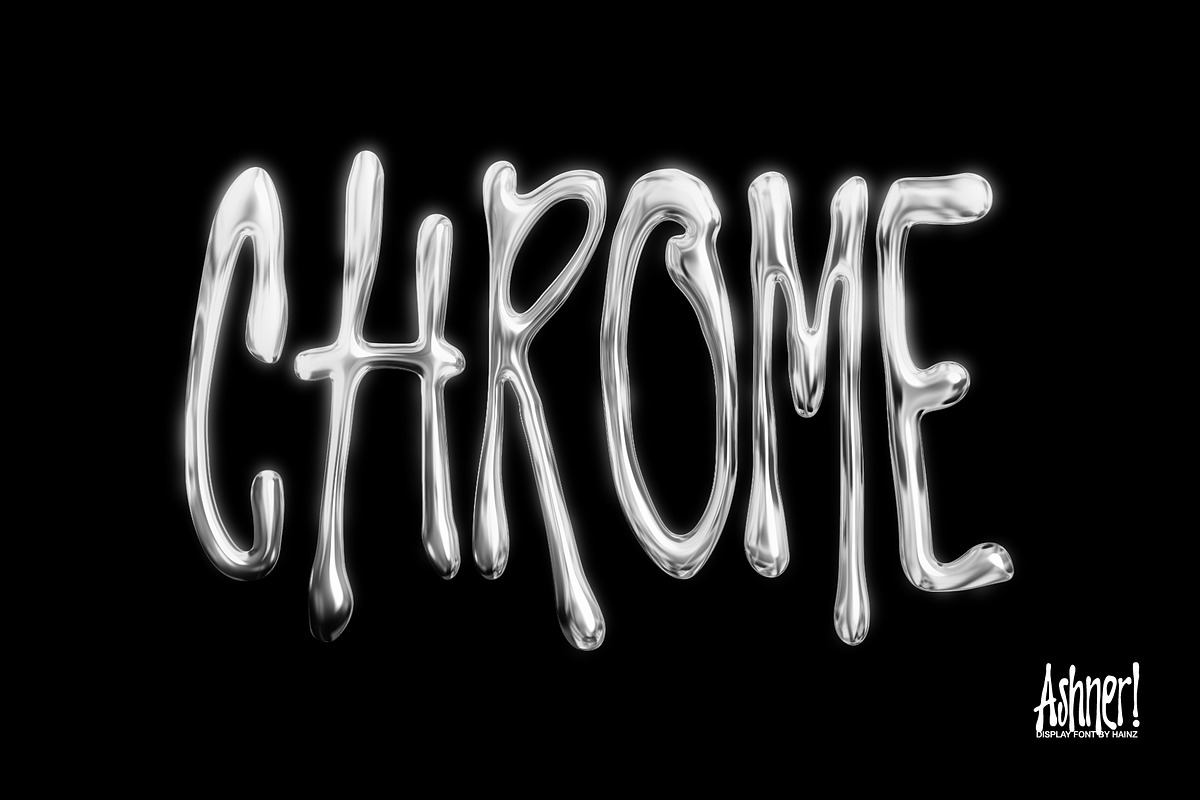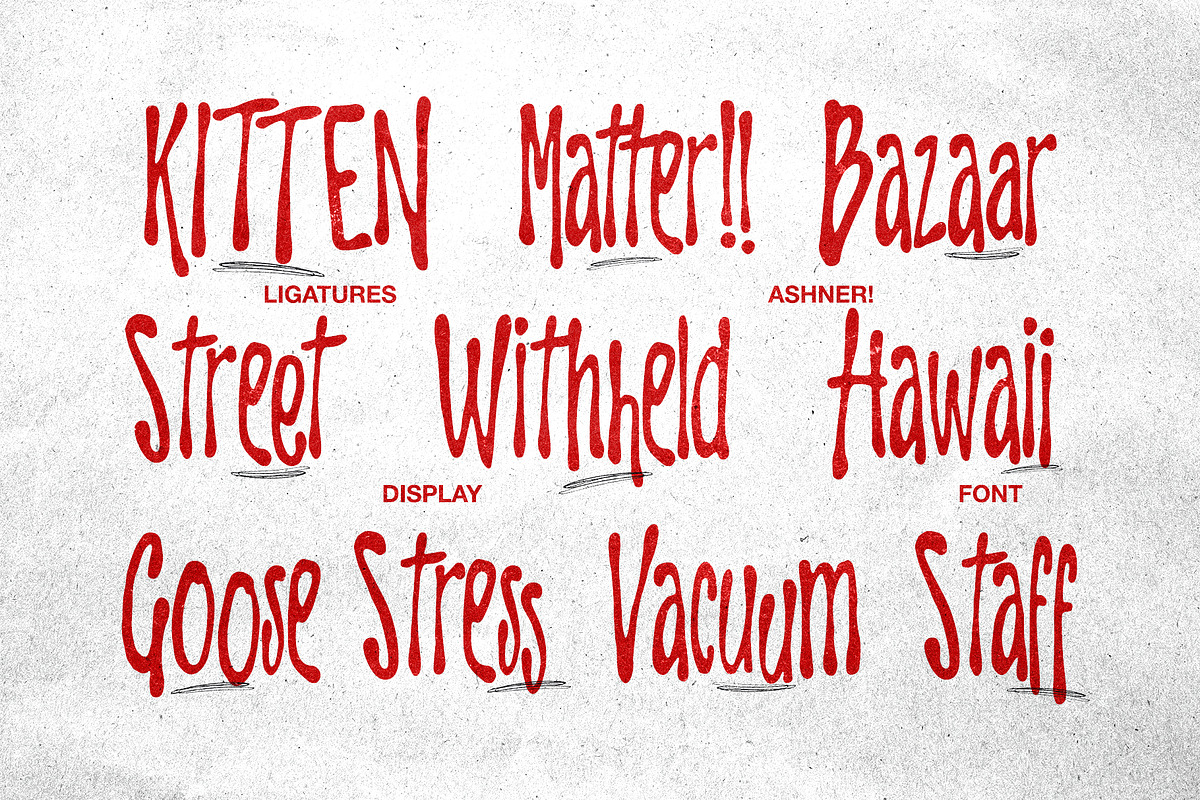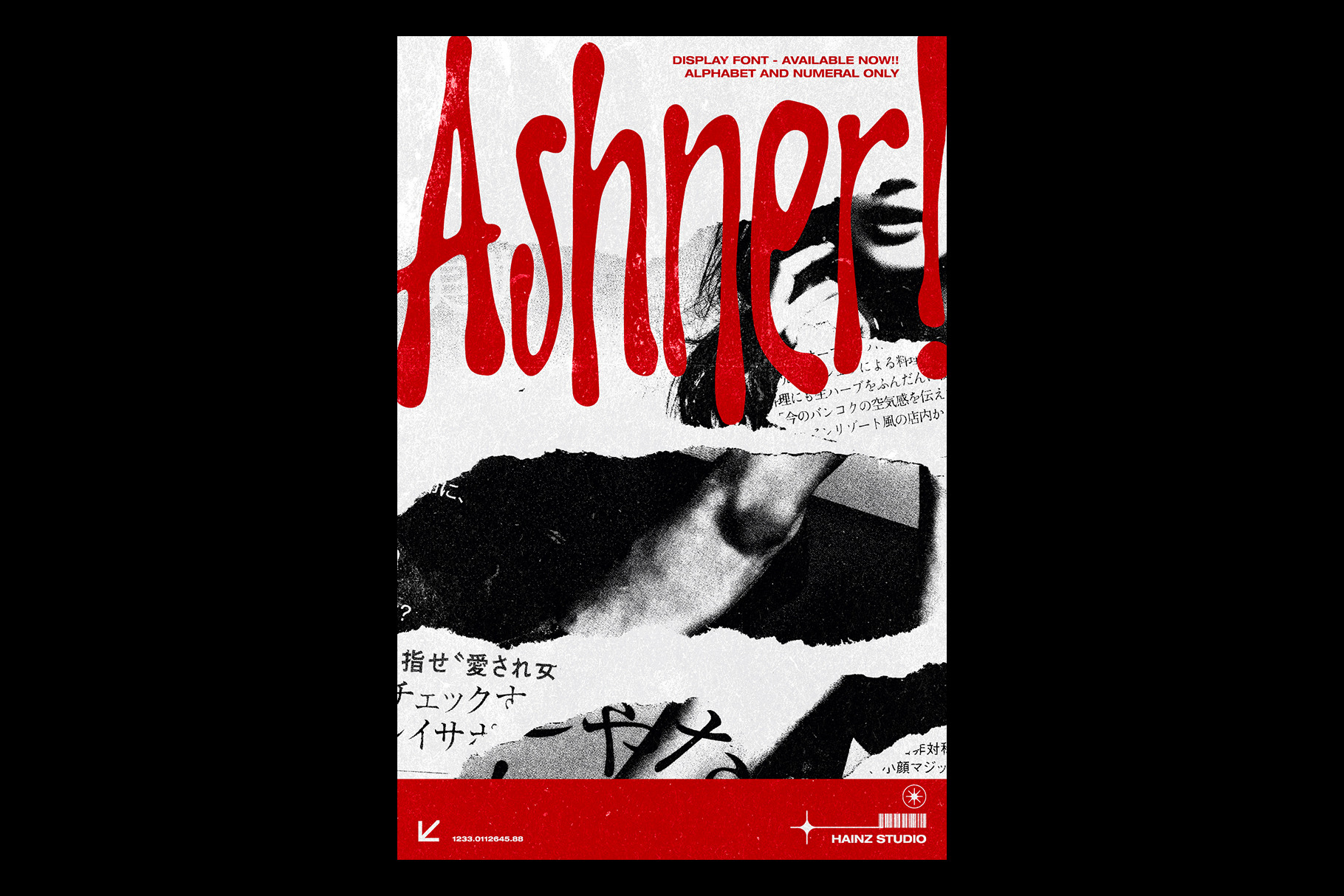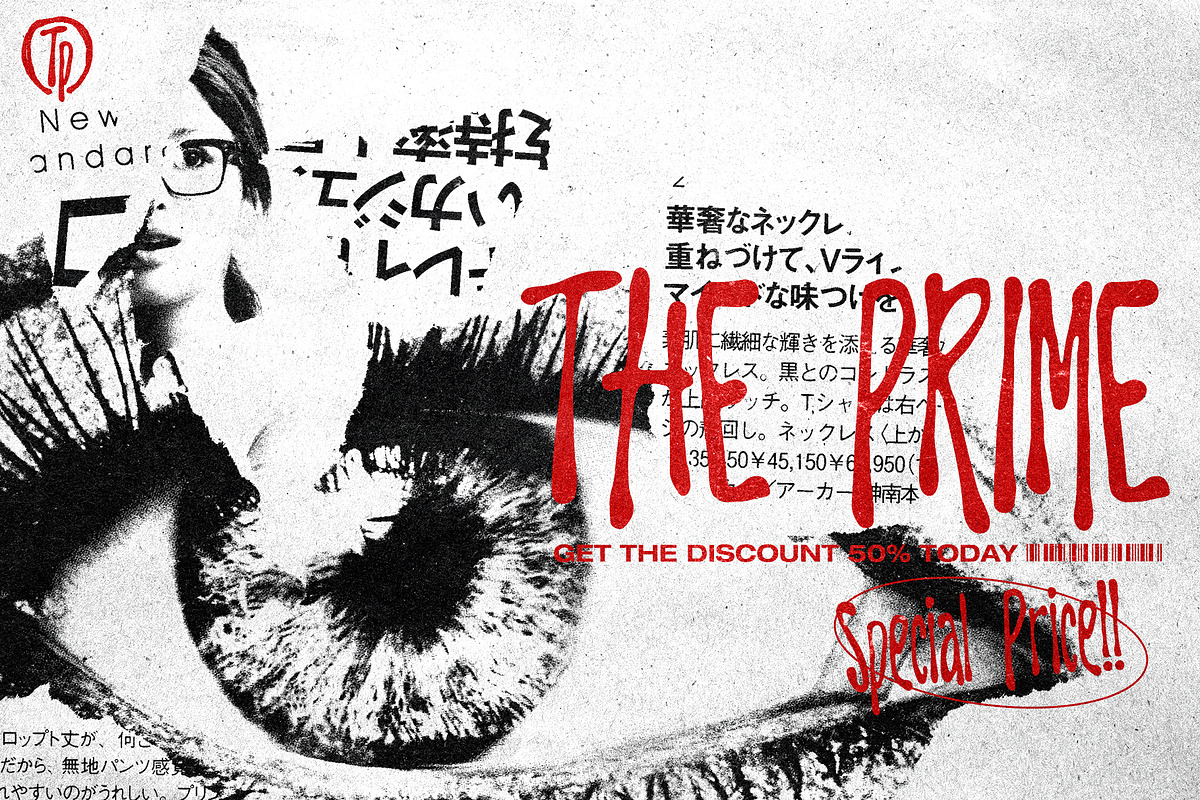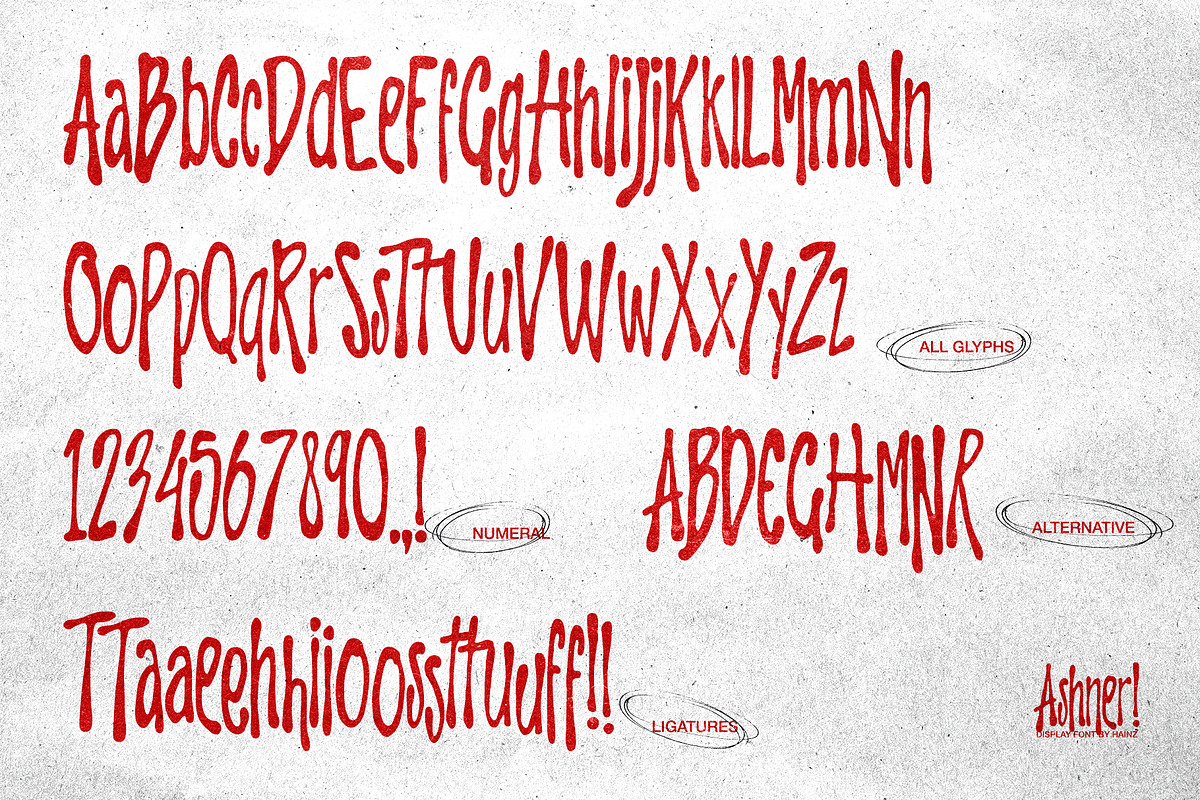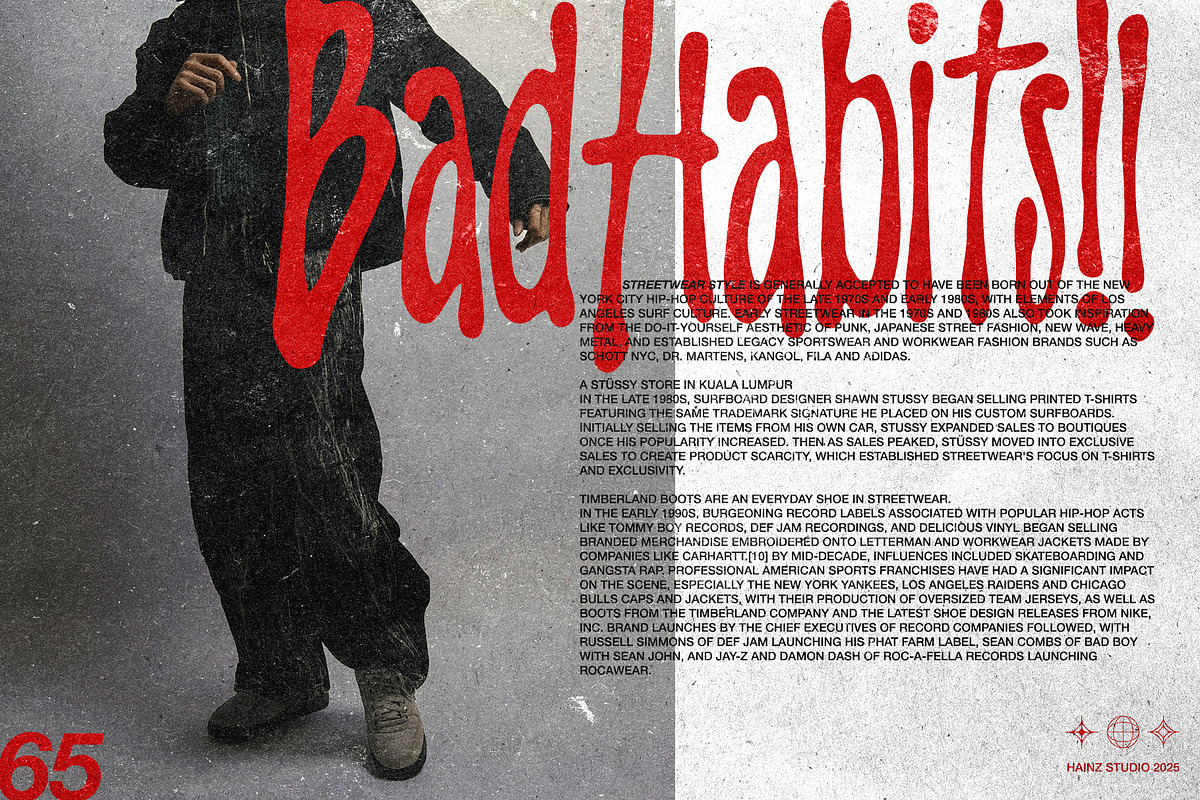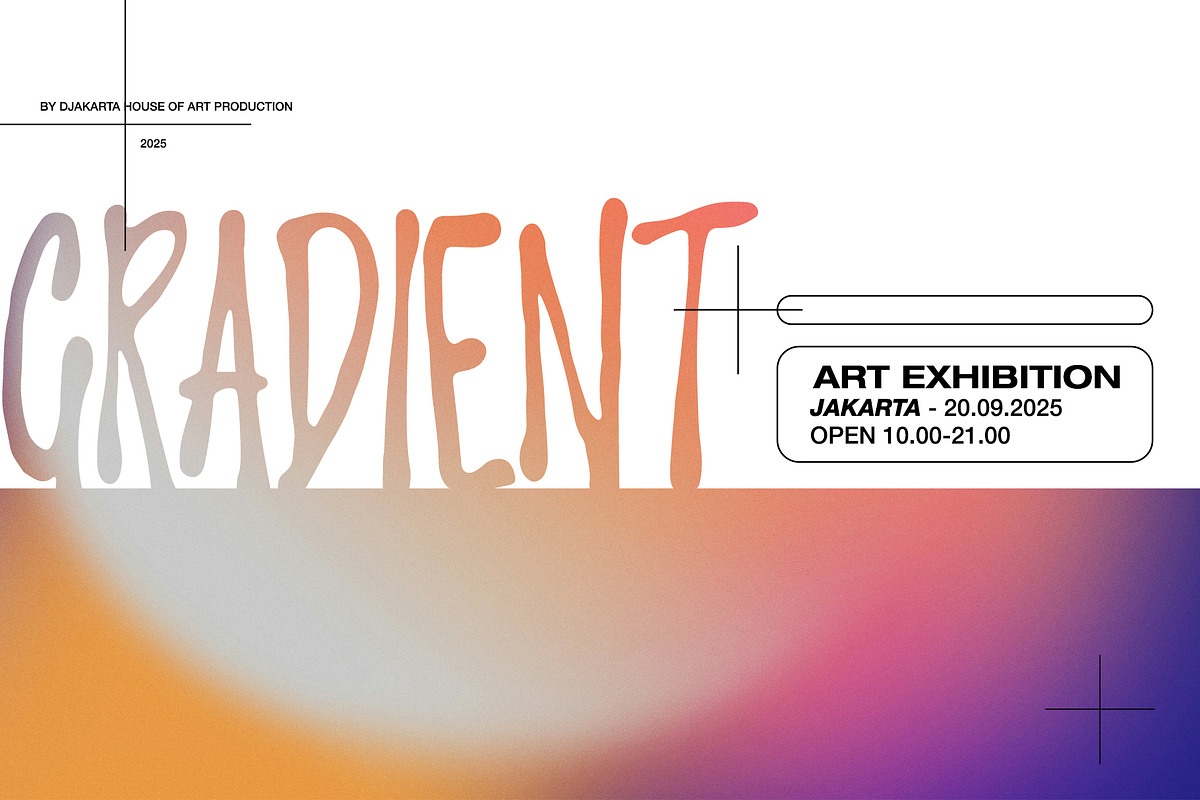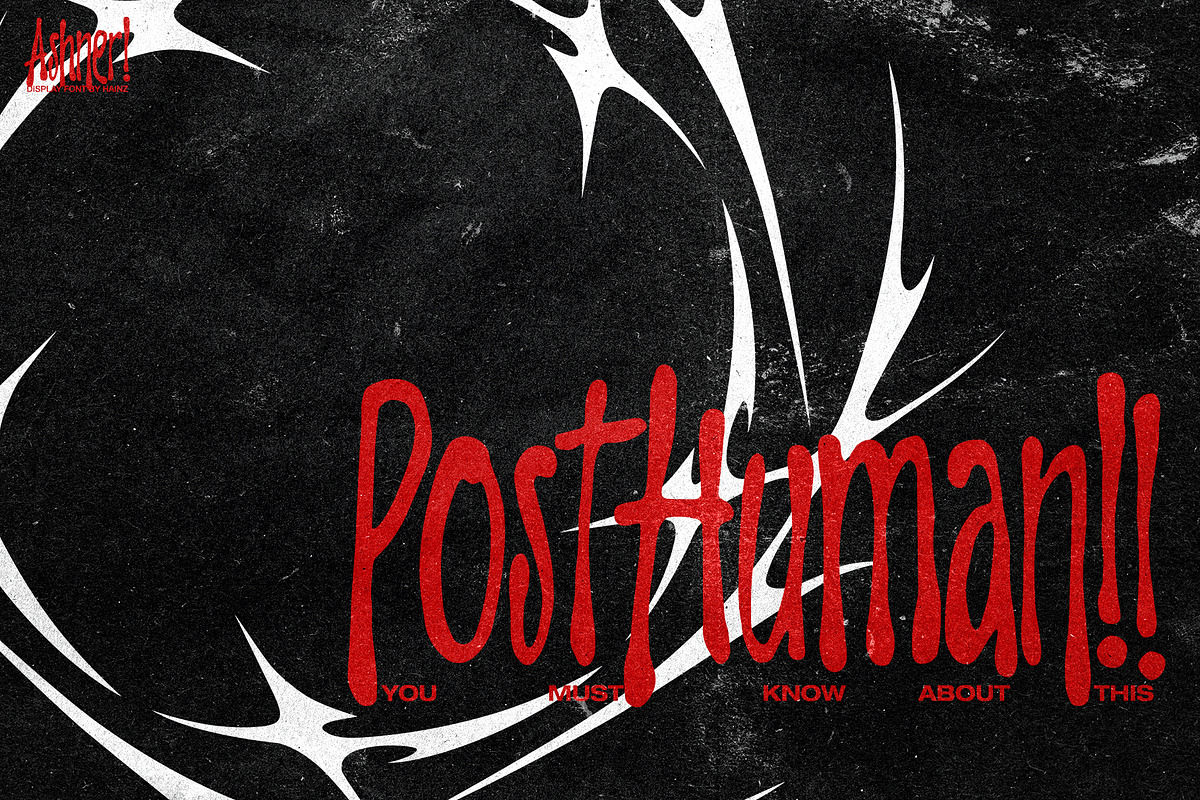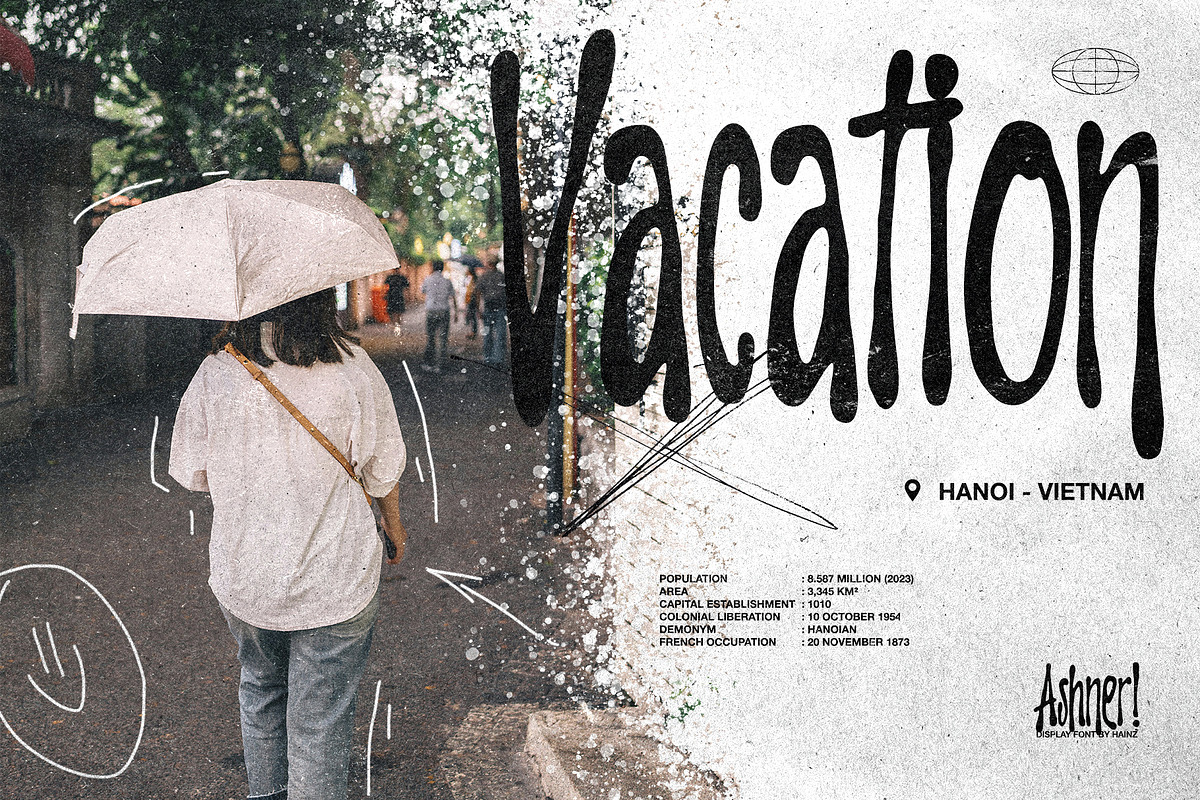
Ashner! - Display Font
🌐 Ashner – A Playful Display Font
Ashner is a quirky and bold display font designed to bring energy and expression to your creative projects. With its stretched, exaggerated letterforms and handcrafted personality, Ashner is perfect for posters, album covers, branding, and more.
- Uppercase & Lowercase Letters
- Numbers & Basic Punctuation
- Alternative Glyphs for added variety
- Stylish Ligatures to keep your type looking natural and playful
- Music and streetwear branding
- Editorial titles and zines
- Packaging and label design
- Bold typographic posters